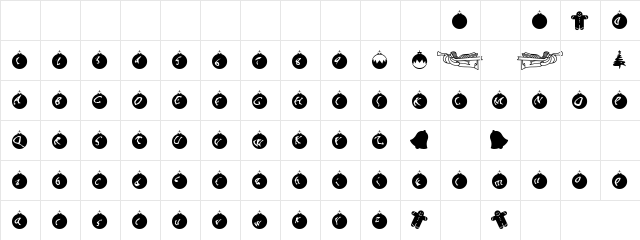
OrnaMental Regular
Design Context for OrnaMental Typeface
OrnaMental is built around its visual character rather than neutral utility — its distinctive forms are designed to make an impression at display sizes.
Font Pairing: Pair with a clean neutral sans-serif for body copy to let OrnaMental's character lead without overwhelming the composition.
Pro Tip: Use OrnaMental exclusively at display sizes — it was designed to be seen, not read at length. Let a neutral companion handle body copy.